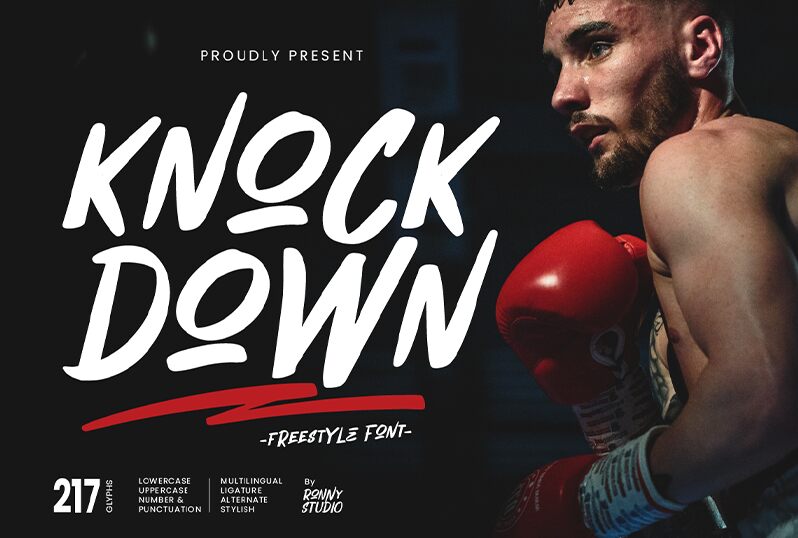
KnockDownRegular
Knock Down, the freestyle marker font by Ronny Studio, is a versatile and expressive typeface suitable for various design projects. Its bold strokes and hand-drawn look make it perfect for creating eye-catching headlines, logos, and branding materials. This semi-bold font is also great for creating posters, flyers, and social media graphics. Whether you're designing a modern website or a vintage-style print ad, Knock Down can add a unique touch to your project. With its rough edges and playful vibe, this font is perfect for designers who want to make a statement with their typography.
Knock Down
Ronny Studio